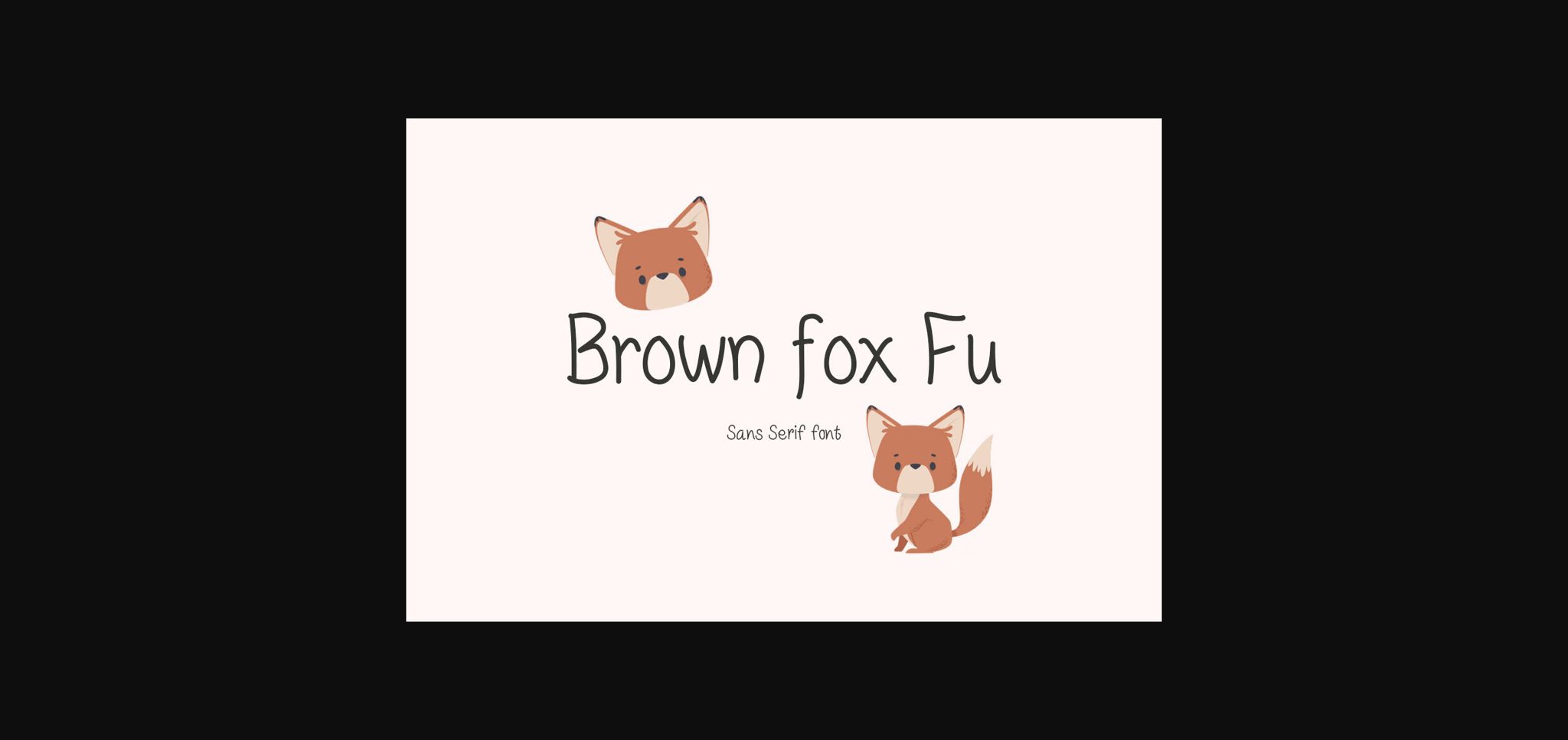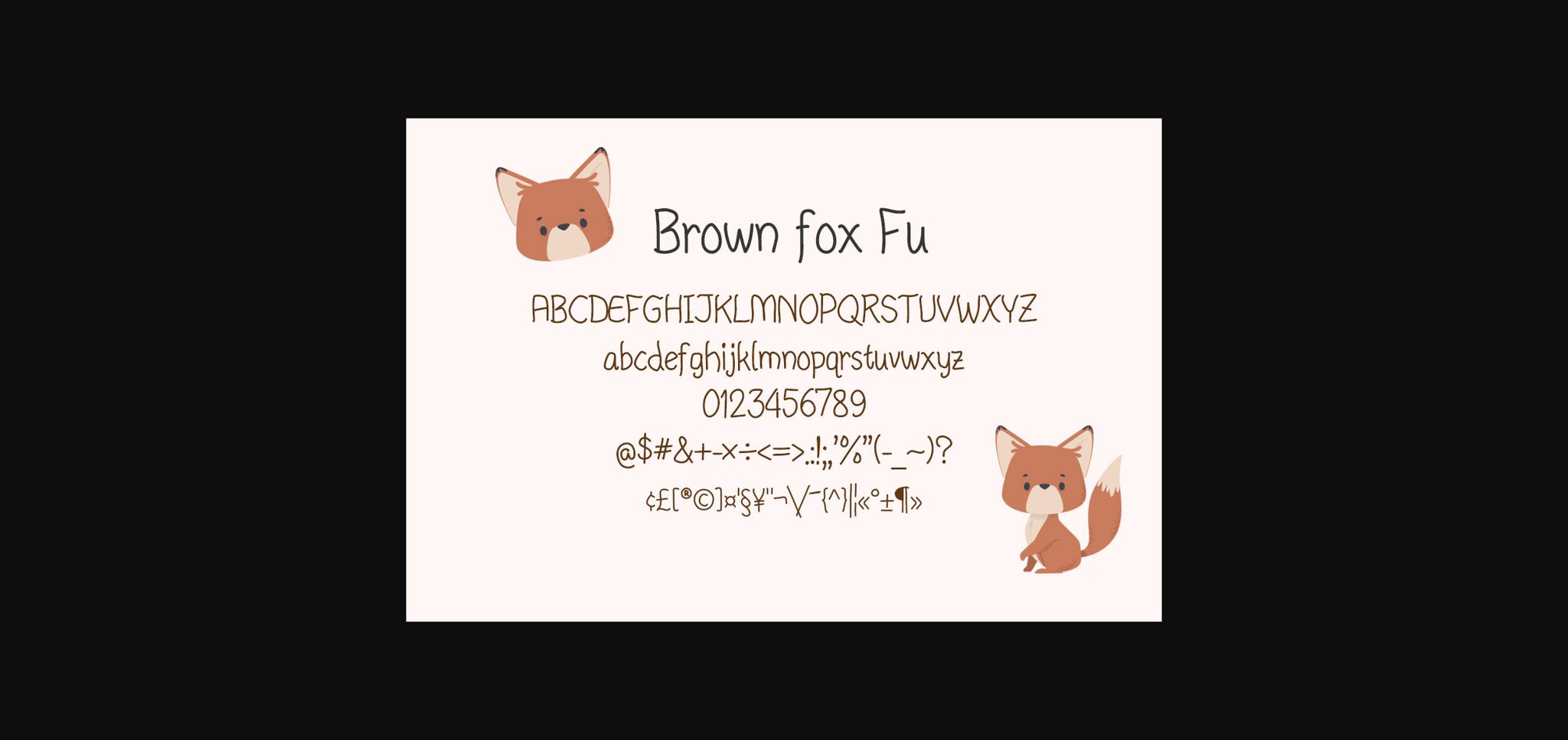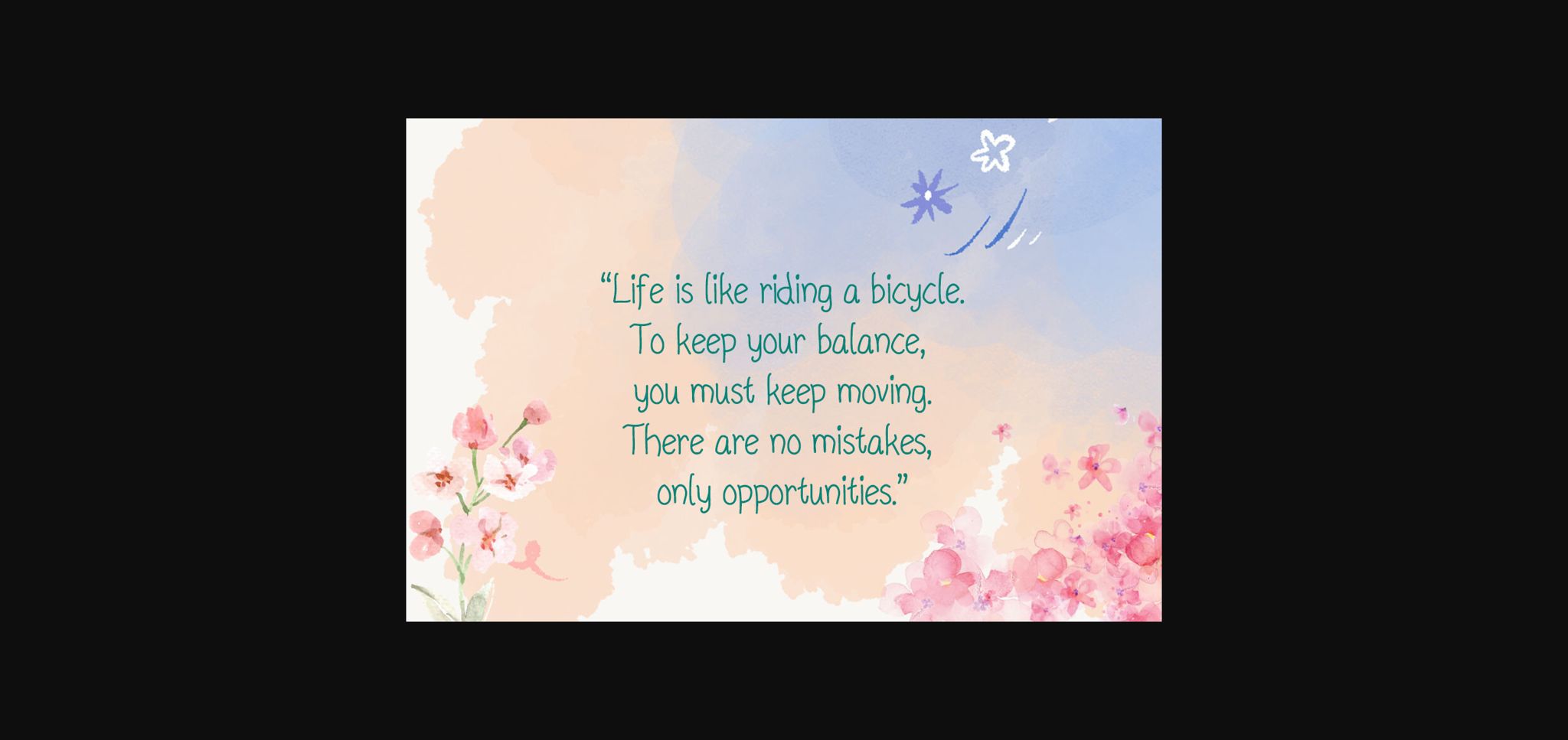
About Brown Fox Fu Font
Brown fox Fu is a fun, Cheerful and quirky sans serif font. It would be awesome to your fun projects or diary planner, on wedding invitations, thank you cards, quotes, greeting cards, logos, posters, social media posts, blogs, bag, T Shirt, clothing and many more!